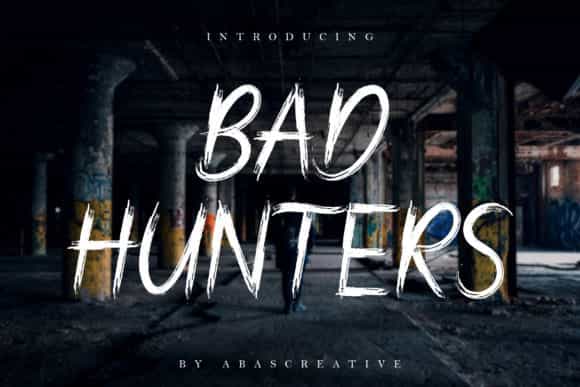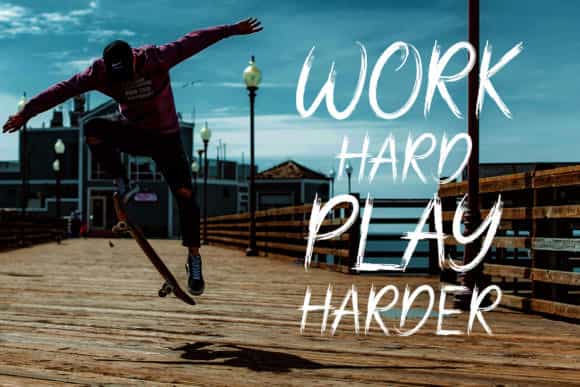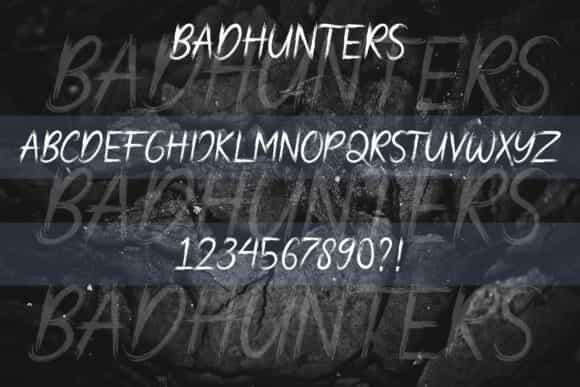
Bad Hunters Font is a brushed font that seems to have a modern look and style to it. Here, that charm is versatile, and it can inspire you to create something unique and original. Using the basic ink on paper technique, Bad Hunter promises to bring a loud and fast message like no other.